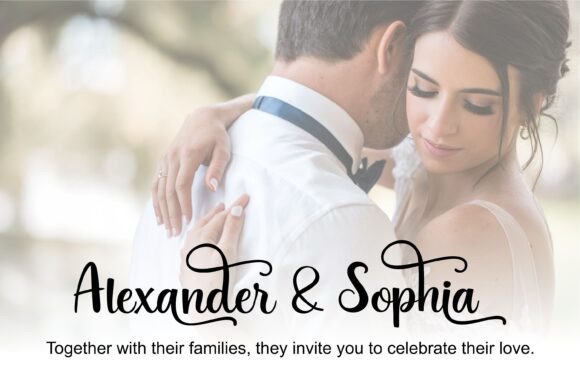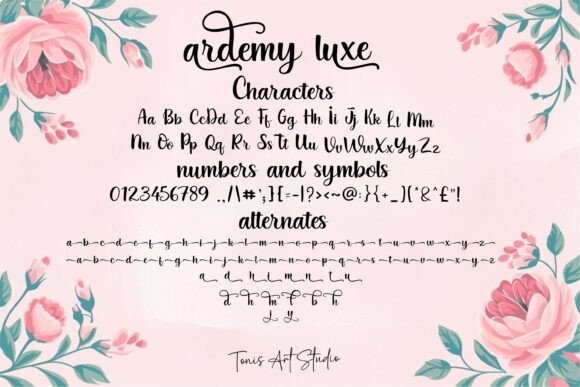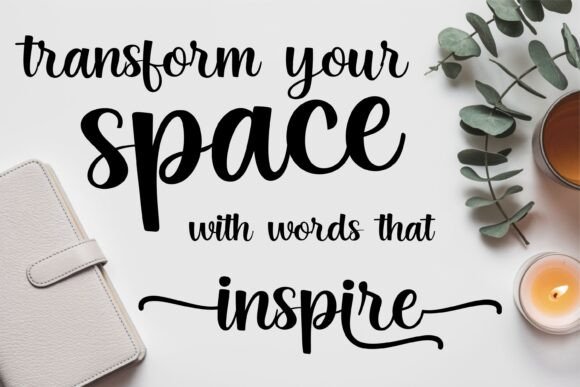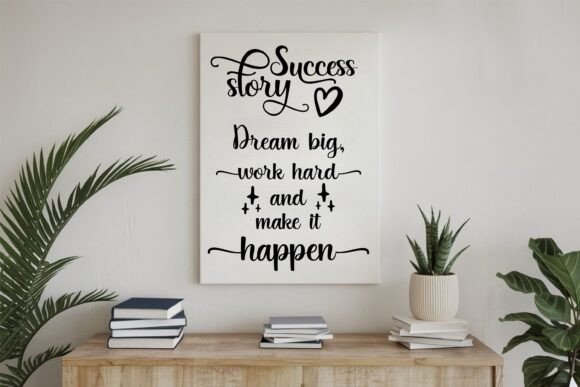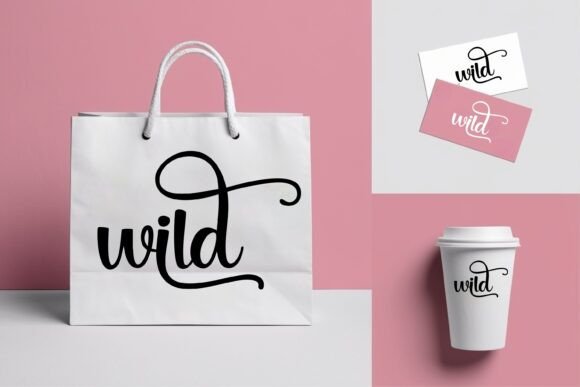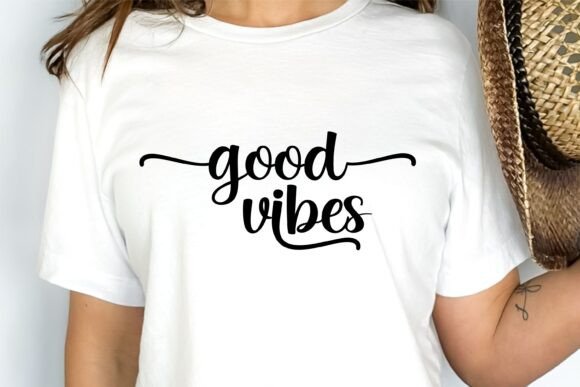
Unleashing the Elegance: Discover the Ardemy Luxe Font
As you sit at your desk, surrounded by papers, sketches, and half-finished projects, the spark of creativity strikes. You envision a beautiful wedding invitation, a stunning logo for a luxury brand, or a social media post that stands out from the crowd. The right font can make all the difference in bringing your vision to life. This is where the Ardemy Luxe Font comes in – a luxurious and elegant script font designed to elevate your designs to new heights.
With its sophisticated feel and refined lines, the Ardemy Luxe Font is perfect for creating stylish logos, invitations, social media posts, and more. Whether you’re a seasoned designer or just starting out, this font is a valuable addition to your toolkit. Its versatility and elegance make it a go-to choice for designers who want to create truly memorable designs.
- Unique Characteristics: Elegant script with a luxurious feel, ideal for high-end branding, invitations, and special occasions.
A Designer’s Review: Ardemy Luxe Font
I recently had the chance to work with the Ardemy Luxe Font, and I must say it’s a mixed bag. Here’s my honest take on what works well and what doesn’t.
What Works Well: ✨
- Refined Elegance: The Ardemy Luxe Font exudes a sense of refined elegance, perfect for high-end branding and design projects.
- Legibility: The font is highly legible, making it suitable for body text and headlines alike.
- Style Versatility: The font comes in multiple weights, allowing designers to experiment with different styles and moods.
- Over-Used: The font’s elegant aesthetic might make it feel over-used in certain contexts, lacking a unique touch.
- Lack of Distinctiveness: While refined, the font doesn’t particularly stand out in a crowded design landscape.
- Not Ideal for Digital: The font’s high contrast and fine details might not translate well to digital displays.
Overall, the Ardemy Luxe Font is a solid choice for designers seeking a refined, elegant aesthetic. However, it may not be the most distinctive or versatile option available. Its limitations should be carefully considered before committing to a design project.
To get the most out of the Ardemy Luxe font, try combining it with other elegant fonts and using it in a variety of design contexts, such as:
- Luxury branding and packaging
- High-end product labels and signage
The Ardemy Luxe font is ideal for any design project that requires a touch of elegance and sophistication, including:
- Formal events and celebrations
- Luxury product launches and advertising
- High-end branding and